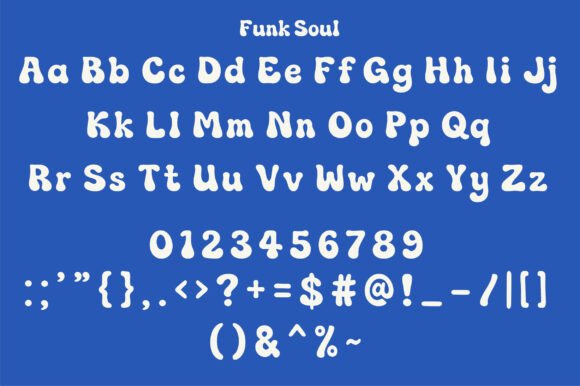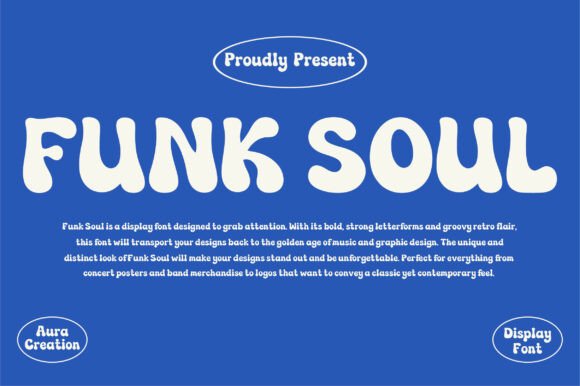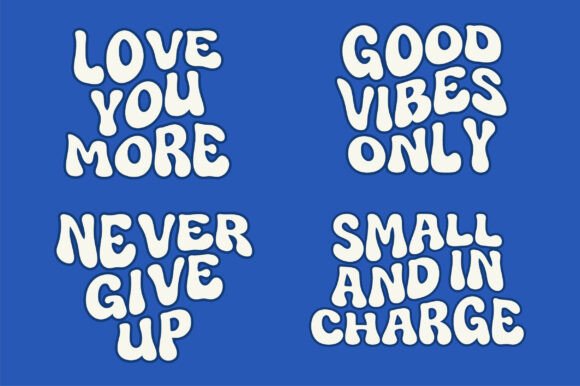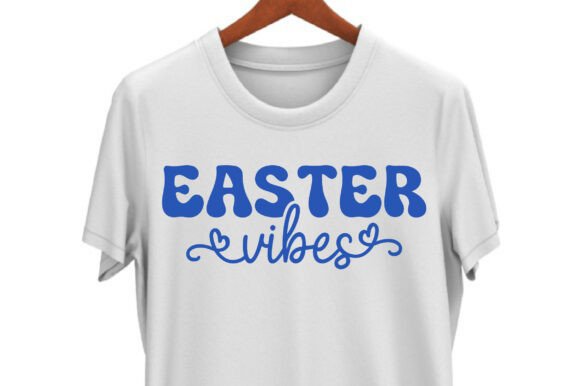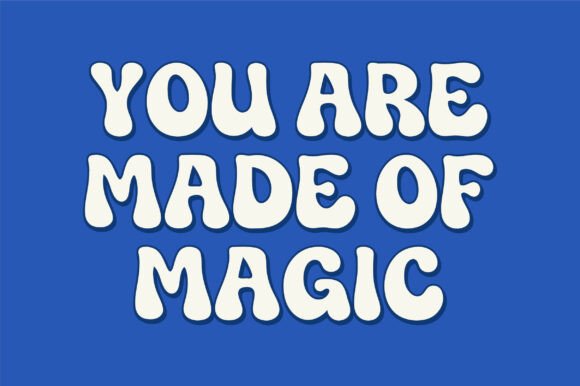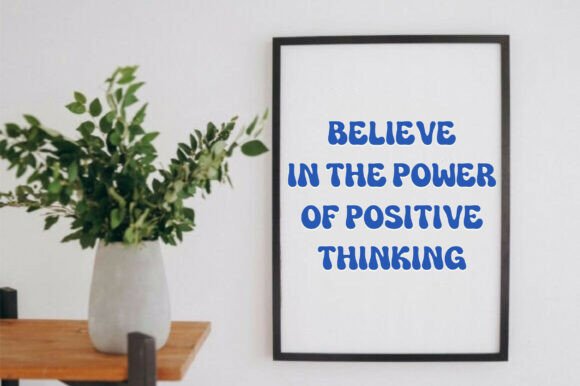
Introduction to Funk Soul Font
Dive into the soulful aesthetics of the 70s with the Funk Soul font , a vibrant retro groovy display typeface designed to bring high energy to every layout.
This Funk Soul typeface is characterized by its thick, wavy strokes and โmeltedโ silhouettes that perfectly capture the psychedelic spirit of vintage poster design It is the ultimate choice for music festival branding, fun apparel lines, and social media graphics that need to pop with a sense of nostalgic joy.
Key Features of Funk Soul Font
Why Choose Funk Soul Font?